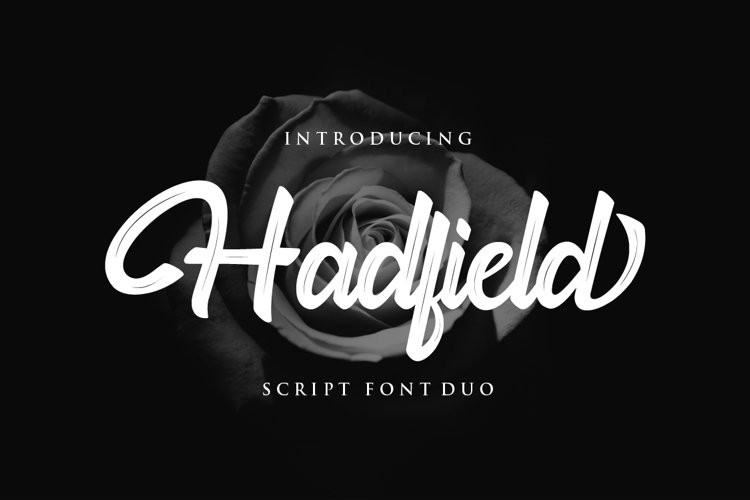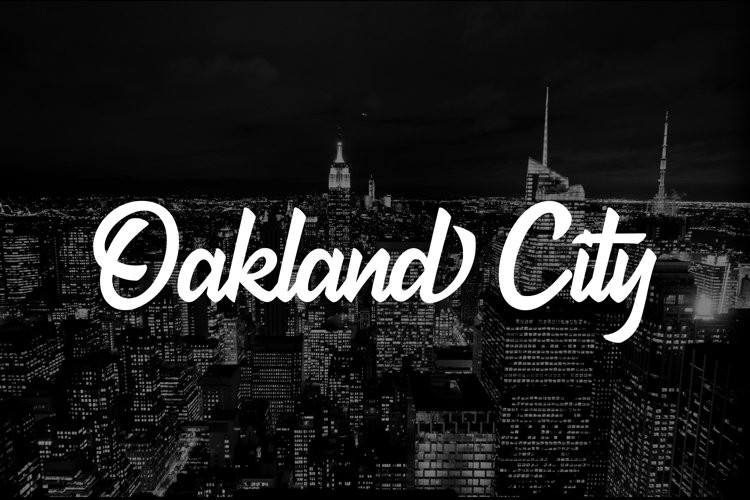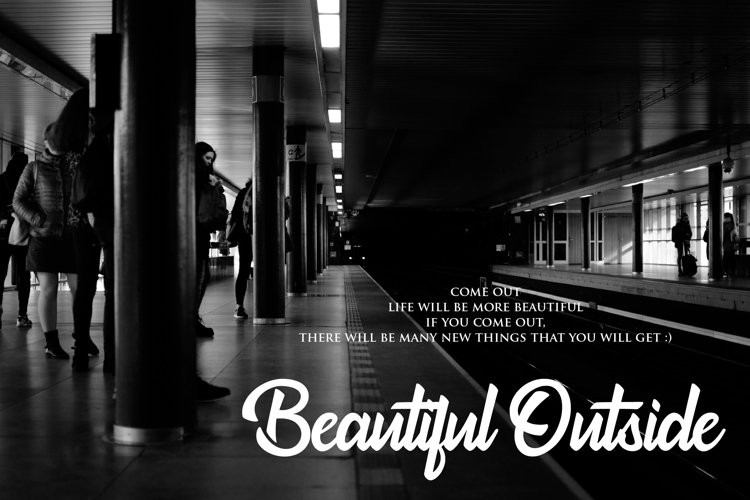
Hadfield Font
Hadfield Fontintroduce my new font with the name Hadfield Script font, this is a modern font script that is suitable for use and multipurpose because it comes with 2 types of fonts. namely regular hadfields and hadfield strips. The Hadfield script font is also equipped with stylistic alternate which makes this font more beautiful.This font is suitable for various purposes as: a brand name for a product or another, photo watermark, This font can also be used for other purposes such as posters, social media posts, logos & branding, product designs, labels, and much more. Hadfield script font is also equipped with multilingual support.